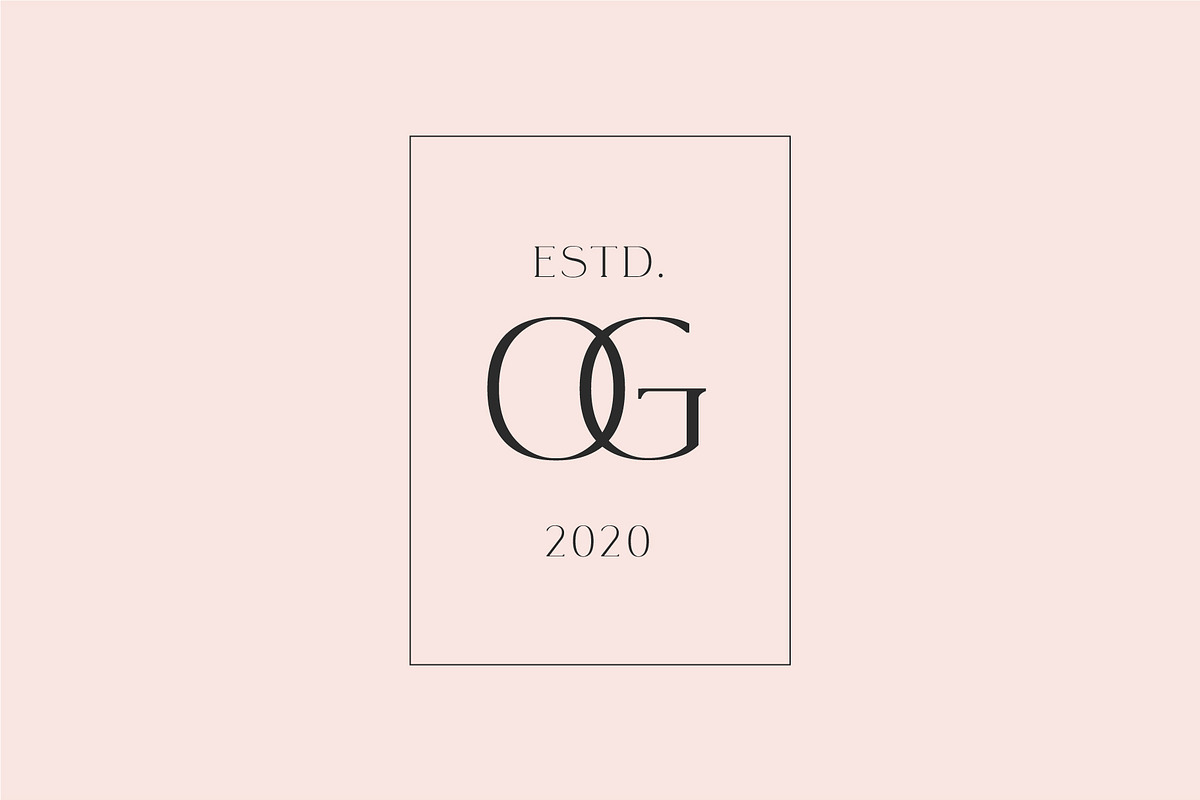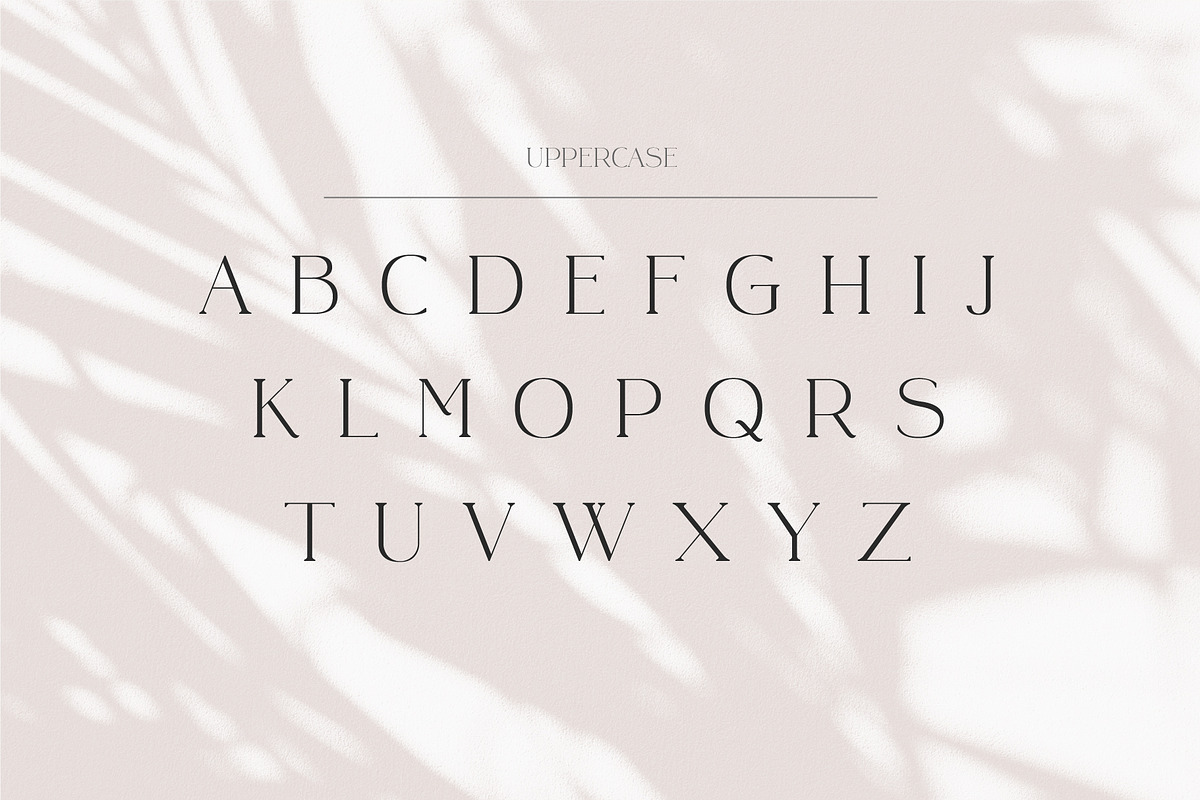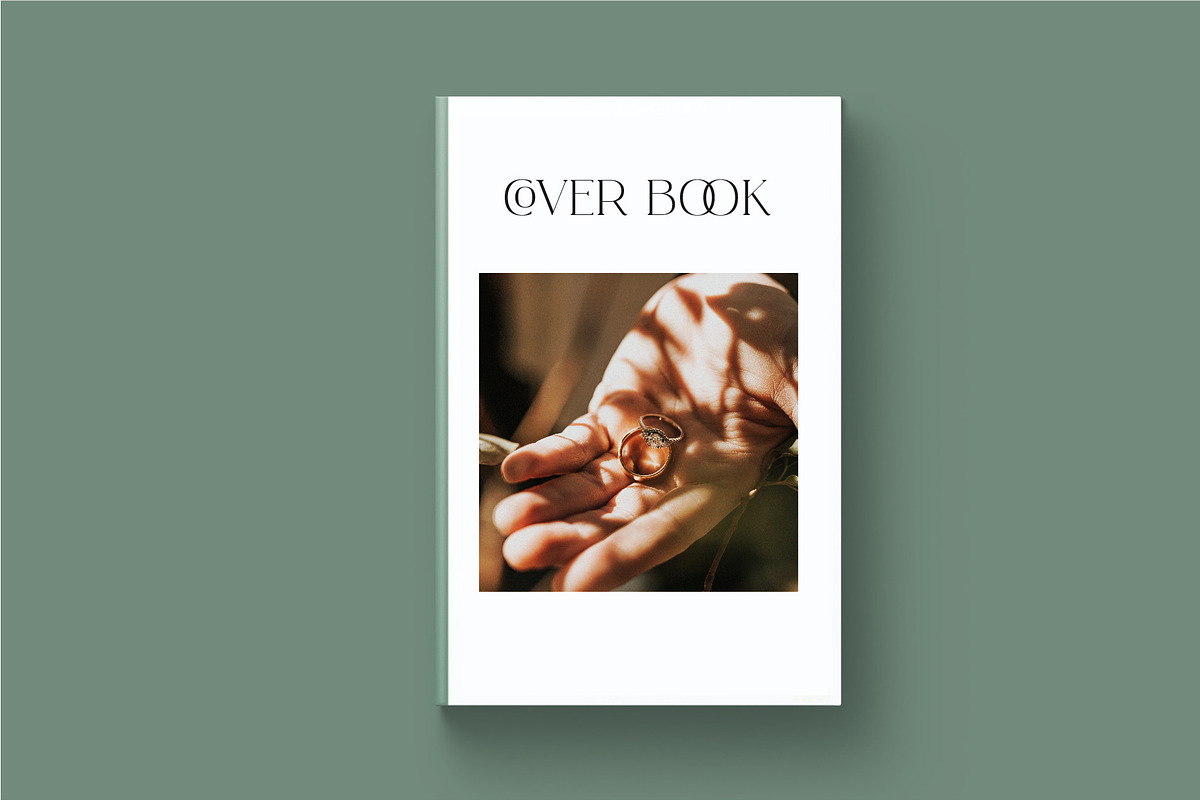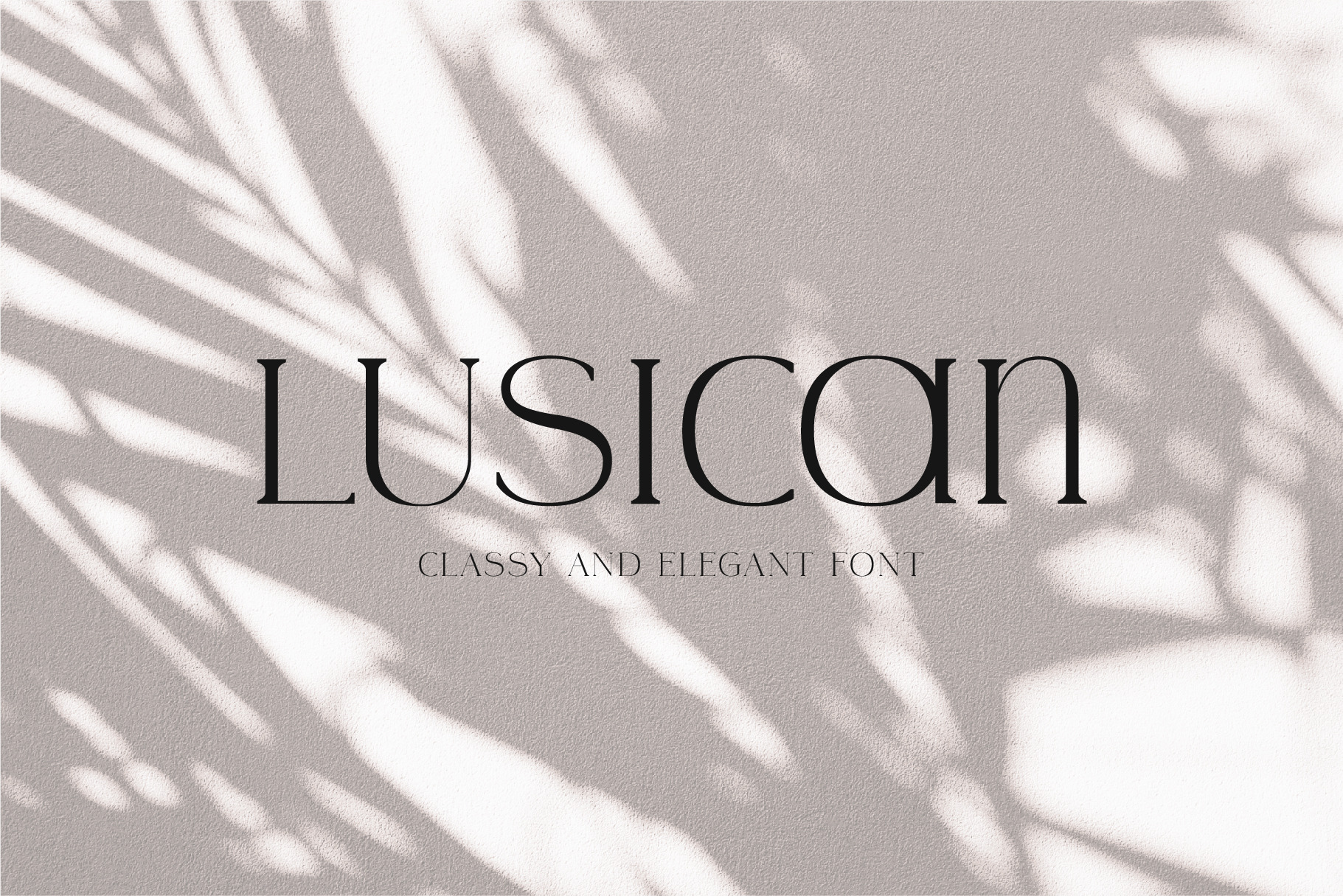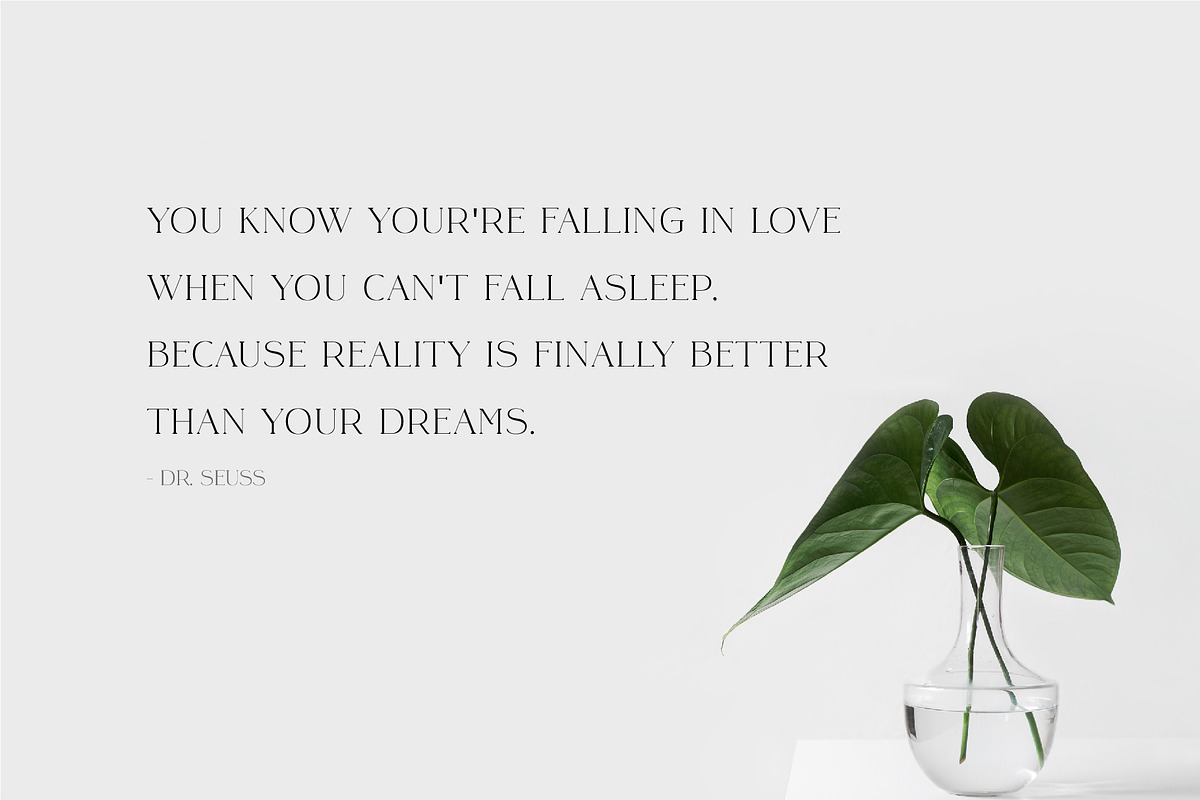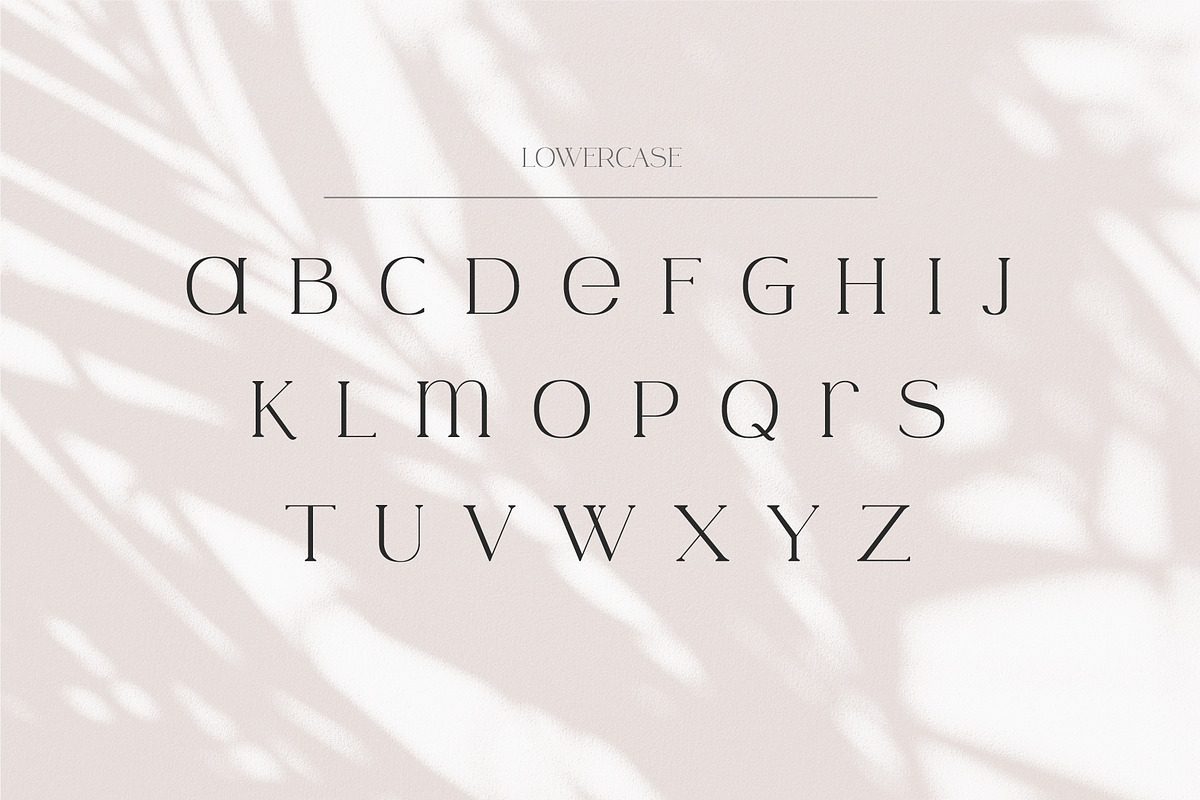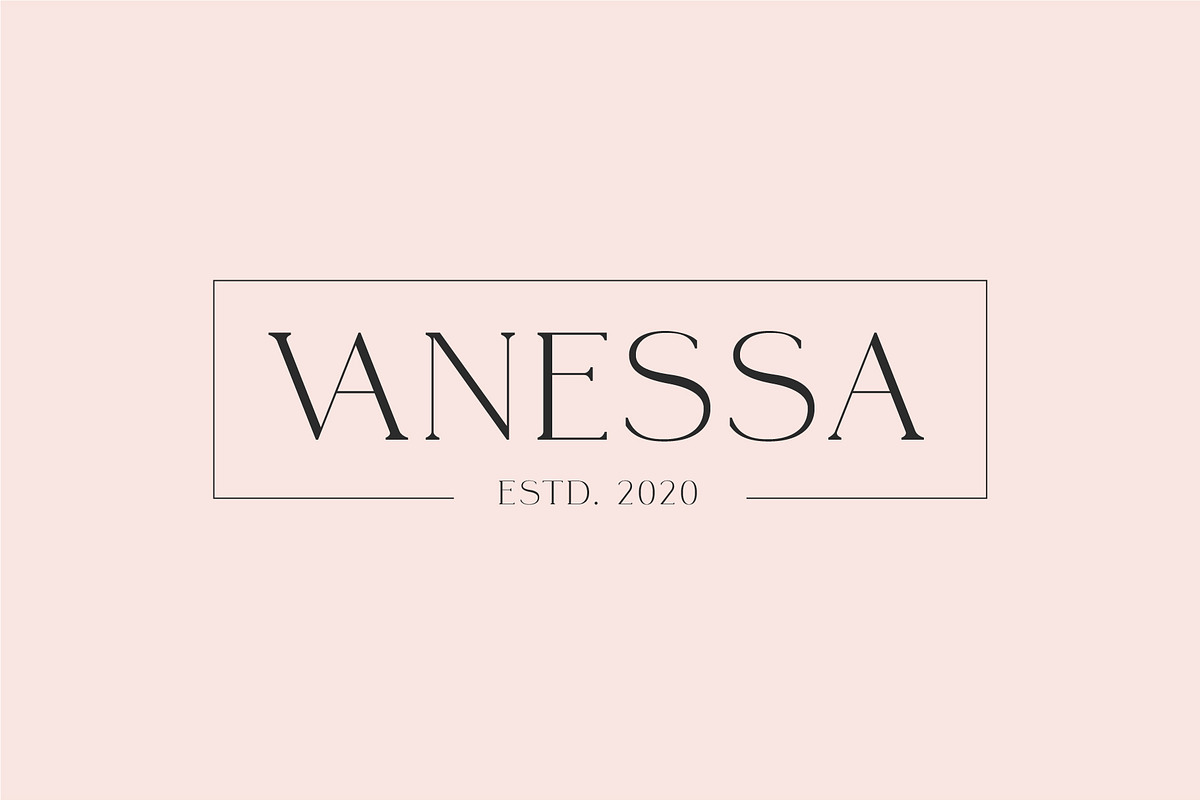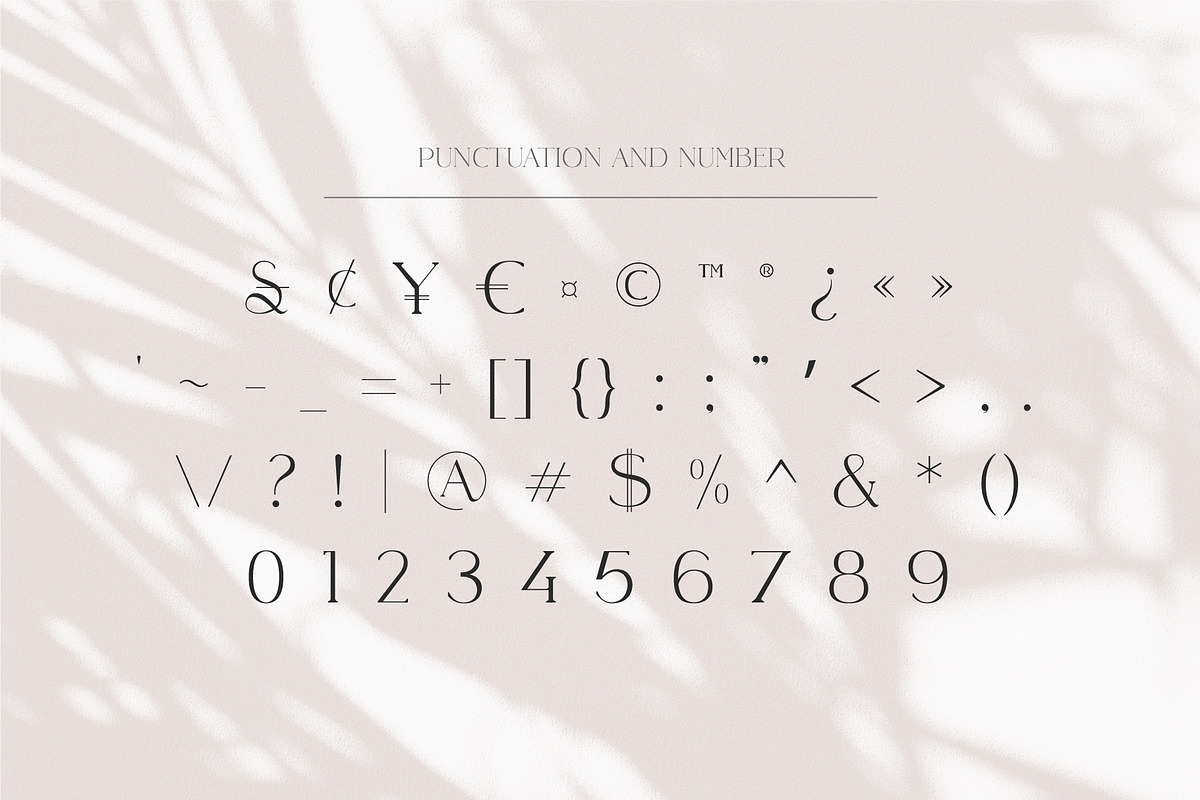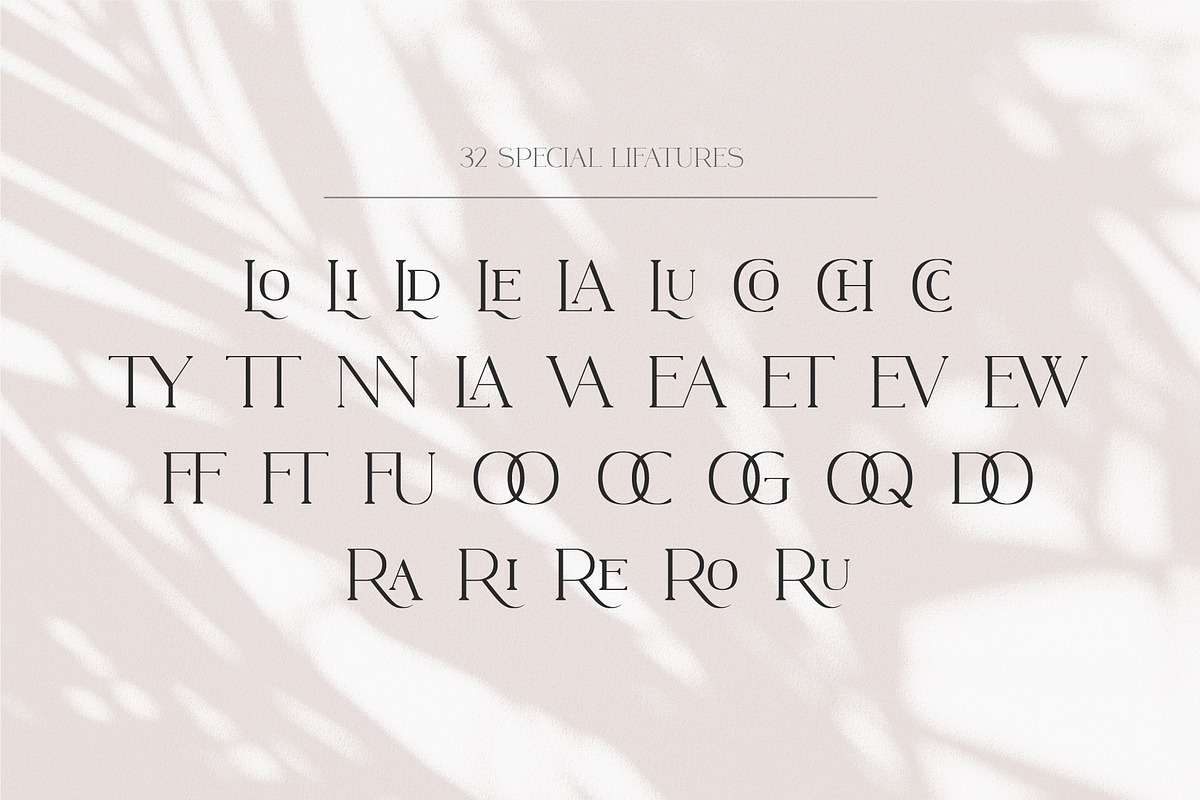
Lusican - Serif Display Font
Lusican is a stylish modern calligraphy font with ligature-rich Serif. Minimalist character that allowing you to easily edit the designs. It is perfect for branding, wedding invites and cards, and maybe for some project.
- 32 Special ligatures